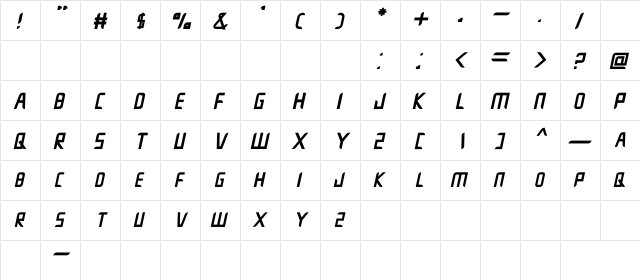
Crushnot Italic
| Designer | Prio Nurokhim Aji |
Design Context for Crushnot Typeface
Crushnot takes a measured approach to typography — its balanced proportions and neutral character make it a reliable workhorse for both digital and print work. The slanted form adds forward momentum and visual energy.
Pro Tip: Try Crushnot for annotation and caption copy alongside an upright companion — the contrast in angle creates a dynamic but ordered typographic system.